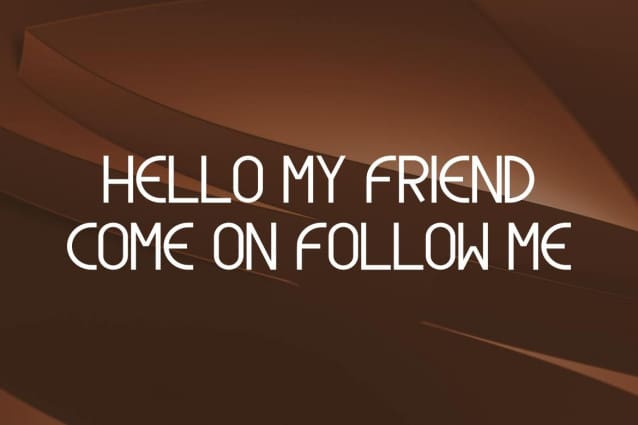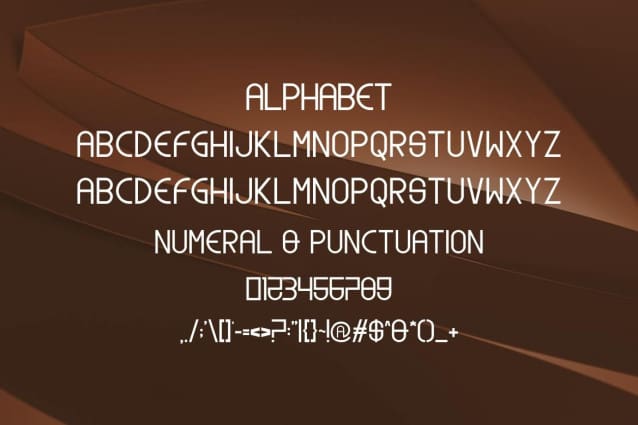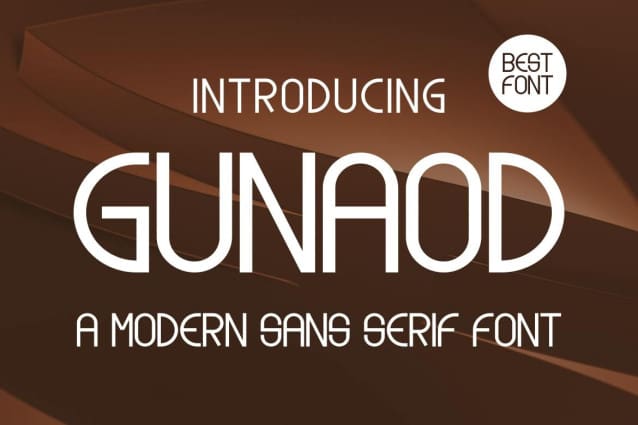
Gunaod Font
Gunaod Font is a modern and simple font ideal for displaying titles, logos, branding, magazines, product packaging and invitations. Gunaod features clean lines and gentle curves that give any project an extra touch of class